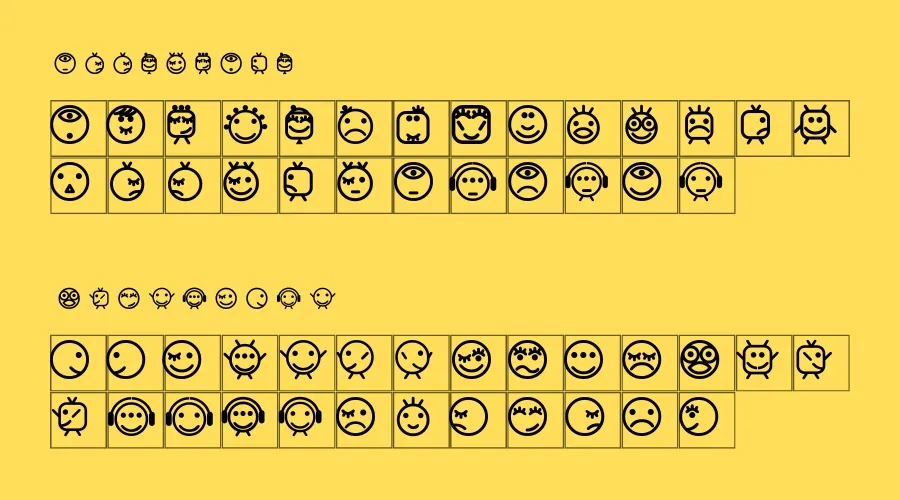
About Smilly Normal Font
Smilly Normal Font is a sleek and strong typeface with all image characters, it makes a solid foundation for blossomed alternatives. These designs are unique and beautiful.
It has the smiley face character in its design which creates an amazing pairing with care pack font for the best results.
This text style contains a clear and perfect plan that's effectively visible by its peruses. This font is the perfect choice for all of your designs if you are seeking a modern, stylish font. The generator tool of this family can be used to create instant designs online.